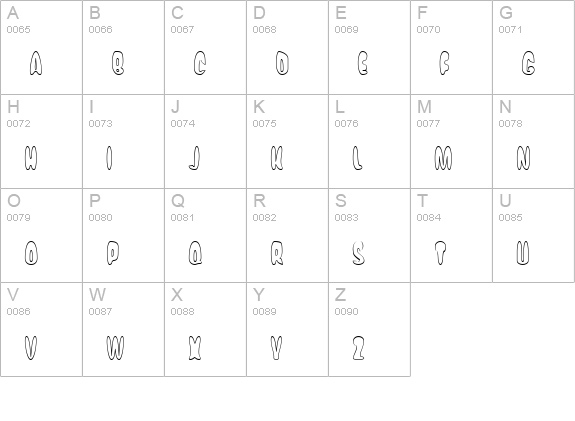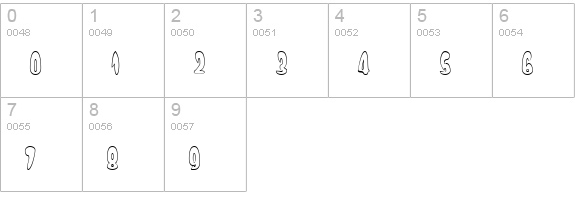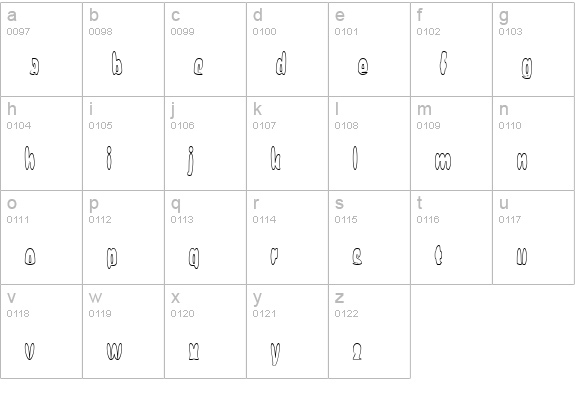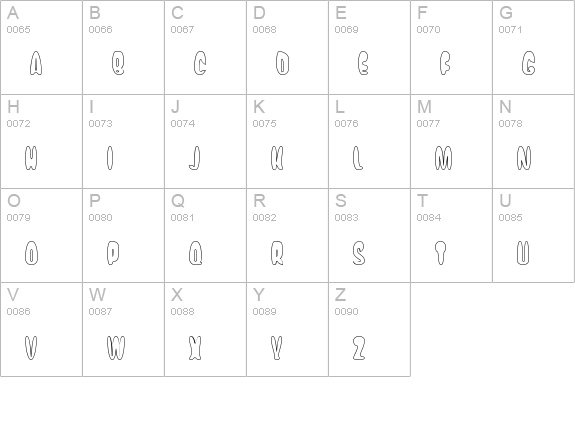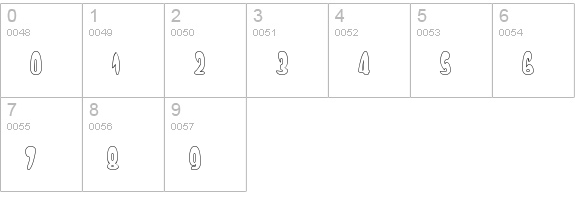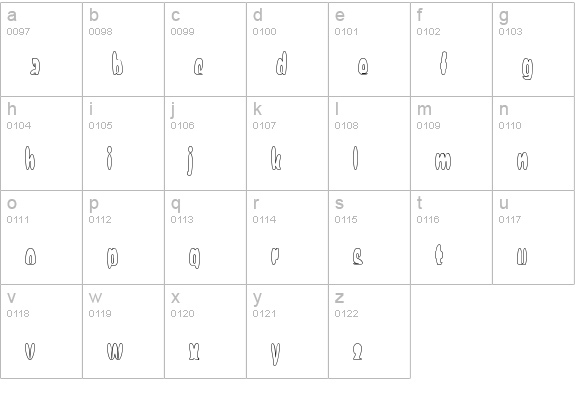
Eggit Outline AOE Font Details
Eggit Outline AOE font is a stunning display typeface that adds a touch of elegance and sophistication to any design project. It features clean lines and a contemporary feel, making it perfect for logos, headlines, posters, and more. This font stands out with its unique outline style, giving it a modern and innovative look. Its bold letterforms are eye-catching and create a strong visual impact. One of the best things about Eggit Outline AOE font is that it is free to use. This means that designers and creatives can easily incorporate it into their projects without any hassle. Whether you are a professional designer or a beginner, this font is a great choice to enhance your designs. To access this font, you can freely download it at FontsMarket.com. This website offers a wide range of fonts, including Eggit Outline AOE, for designers to explore and utilize. FontsMarket.com provides a user-friendly platform where you can easily search, preview, and download fonts for your projects. In conclusion, Eggit Outline AOE font is a captivating and versatile typeface that adds a modern touch to any design. Its free availability on FontsMarket.com makes it accessible for all designers, allowing them to create stunning visuals with ease. So why wait? Start using Eggit Outline AOE font today and take your designs to the next level.